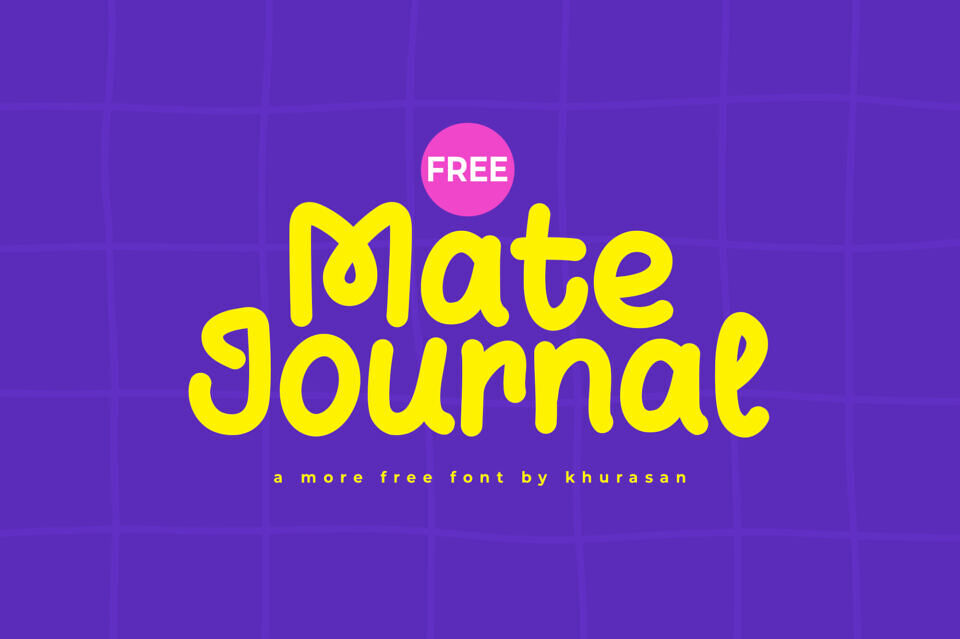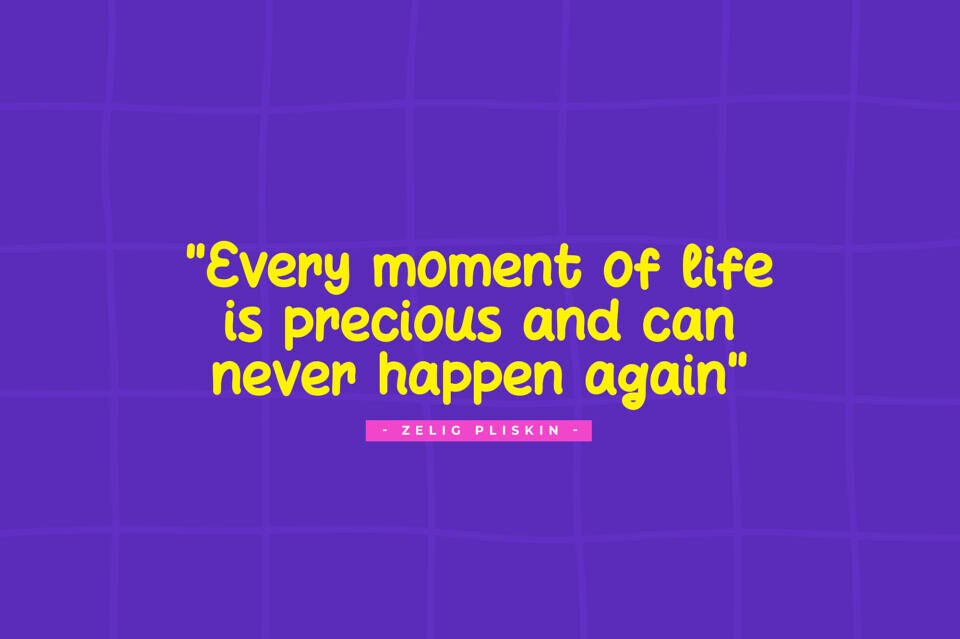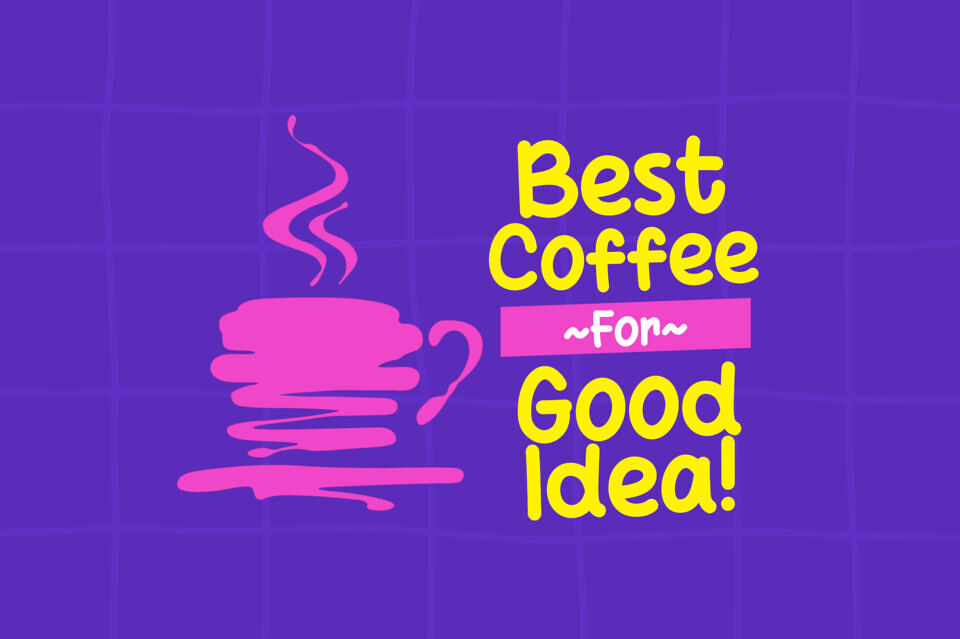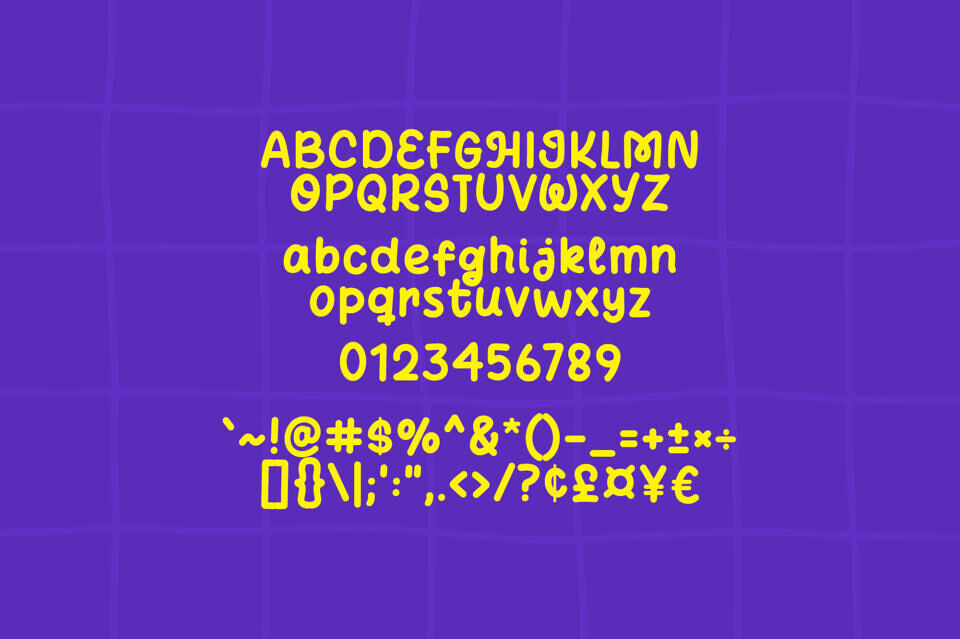
Mate Journal is a modern and cute handwritten font perfect for posters, logos, magazines, book covers, banners, and many more! Get this amazing font, and use it to create lovely designs.